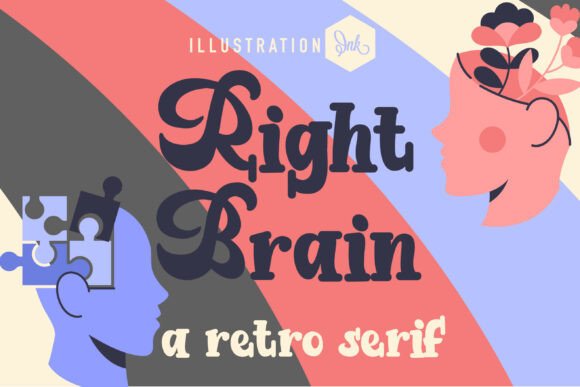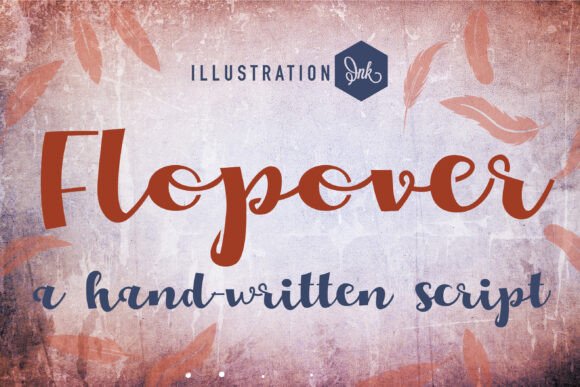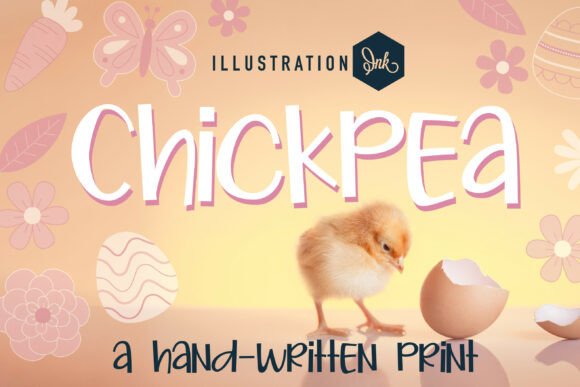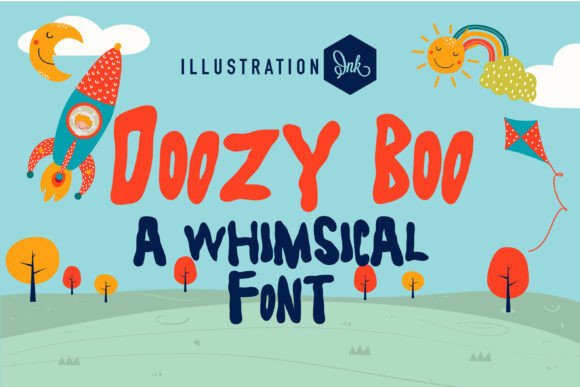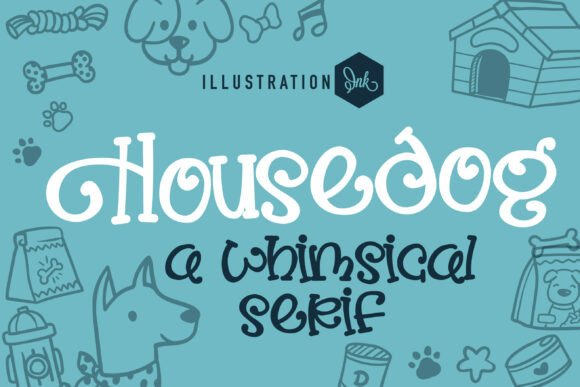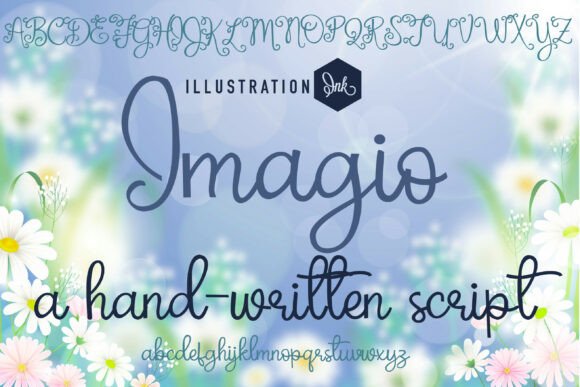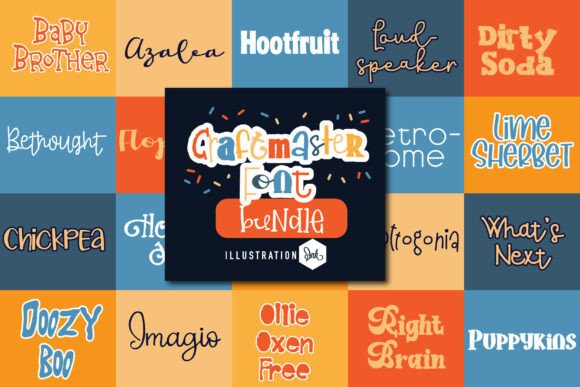
Unlock Endless Creativity with the Craftmaster Font Bundle
Are you a designer, crafter, or DIY enthusiast looking for the perfect typography to elevate your projects? Look no further than the Craftmaster Font Bundle, a comprehensive collection of 20 unique font families curated by Illustration Ink. This hand-crafted bundle is designed to unleash your inner creator, offering a diverse range of styles to suit any project or creative vision.
A Designer’s Playground
The Craftmaster Font Bundle is a powerhouse of creativity, featuring a vast array of typefaces that cater to various design needs. From whimsical and bubbly to clean and modern, this collection has something for everyone. Whether you’re designing nostalgic merchandise, playful children’s apparel, or building a professional brand, this bundle delivers professional-grade versatility in every file.
Explore the Font Families
This incredible bundle includes 20 font families, each with its own unique character and style. Some of the standout fonts include:
- Dirty Soda: A nostalgic font perfect for creating retro-style merchandise and designs.
- Puppykins: A playful and whimsical font ideal for children’s apparel and craft projects.
- Azalea: An elegant font suitable for professional branding and high-end design projects.
With such a diverse range of fonts, you’ll be spoiled for choice. Whether you’re looking for something bold and playful or clean and sophisticated, the Craftmaster Font Bundle has got you covered.
The Craftmaster Font Bundle is a must-have for designers and crafters alike. With this collection, you’ll have access to a wide range of typography options, allowing you to:
- Create unique and eye-catching designs for clients or personal projects.
- Develop a consistent brand identity with a custom font.
- Add a personal touch to DIY projects, such as handmade cards, invitations, or crafts.
Key Features of the Craftmaster Font Bundle
- 20 font families: A diverse collection of typefaces to suit any design need.
- Professional-grade quality: Each font is carefully crafted to ensure high-quality typography.
- : Suitable for a wide range of projects, from design and crafting to branding and marketing.
Benefits of Using the Craftmaster Font Bundle
- Endless creativity: Unlock your full creative potential with a vast array of typography options.